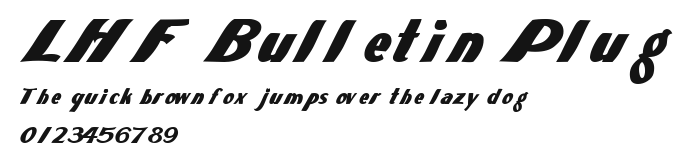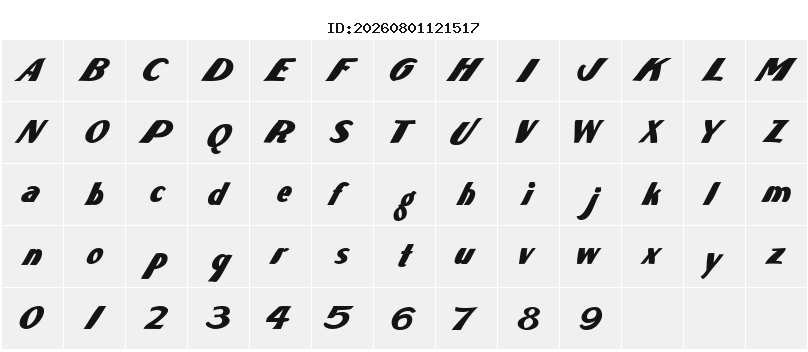
• Font Name: LHF Bulletin Plug
• Full Font Name: LHF Bulletin Plug
About LHF Bulletin Plug.ttf
LHF Bulletin Plug.ttf is a modern, elegant sans-serif font designed for ultimate readability and visual harmony. Perfect for branding, headlines, web design, and print materials.